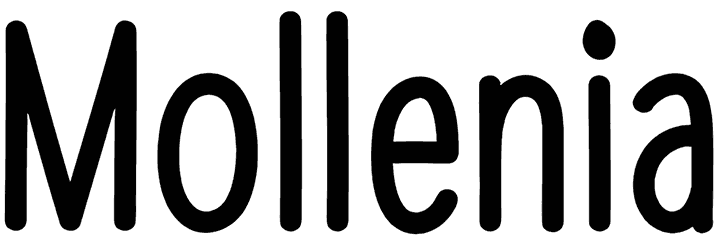
Mollenia Font
The masterwork named Mollenia is a tall, simple font that can give your design an air of elegance and is a good fit for a wide range of design projects, such as invitations or greeting cards. For anyone, a free download of Mollenia can be found here in RB.